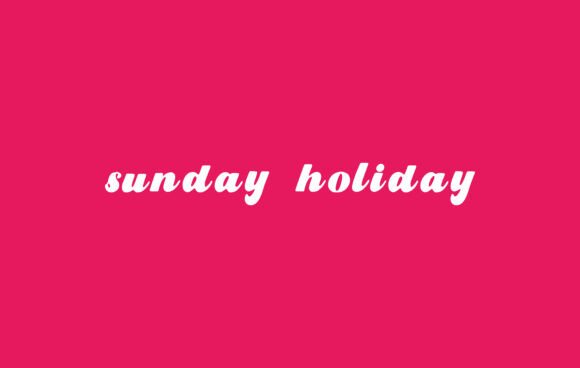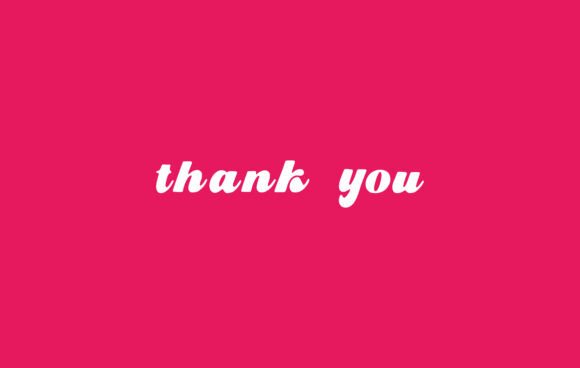
Babaco Font: Elevate Your Designs with a Romantic Handwritten Touch
In the world of typography, a well-crafted font can make all the difference in bringing your creative ideas to life. For designers and crafters looking for a unique and authentic handwritten font with a romantic touch, Babaco Font is an excellent choice. This beautifully designed font is not only legible but also versatile, making it perfect for a wide range of design projects.
What Makes Babaco Font Special?
Babaco Font stands out from the crowd with its distinctive handwritten style that exudes a sense of romance and elegance. Expertly designed to capture the essence of traditional handwriting, this font is sure to become a true favorite among designers and crafters. Its authentic feel makes it an ideal choice for projects where a personal touch is desired.
Key Features of Babaco Font
- Authentic Handwritten Style: Babaco Font boasts a genuine handwritten look that adds a personal touch to any design.
- Romantic Touch: The font’s elegant and flowing lines give it a romantic feel, perfect for projects that require a touch of sophistication.
- Legibility: Despite its handwritten nature, Babaco Font is highly legible, making it suitable for both title and body text.
- Versatility: From magazine headlines and social media graphics to branding, wedding invitations, and cards, Babaco Font can be used in a multitude of design projects.
Uses of Babaco Font
The versatility of Babaco Font makes it a valuable asset for designers and crafters. Here are some of the many ways you can use this beautiful font:
- Magazine Headlines: Add a touch of elegance to your magazine or editorial designs with Babaco Font.
- Social Media Graphics: Stand out on social media platforms with eye-catching graphics featuring Babaco Font.
- Branding: Use Babaco Font to create a unique and memorable brand identity.
- Wedding Invitations: Add a romantic touch to wedding invitations and save-the-date cards.
- Cards and Stationery: Create beautiful and personalized cards and stationery with Babaco Font.
Tips for Using Babaco Font Effectively
To get the most out of Babaco Font, consider the following tips:
- Mix and Match: Experiment with different font sizes, colors, and styles to create visual interest.
- Pair with Other Fonts: Combine Babaco Font with other fonts to create a unique and harmonious design.
- Play with Colors: Take advantage of Babaco Font’s versatility by using it with a variety of colors and textures.
Babaco Font is a beautiful and versatile handwritten font that can elevate your designs to new heights. With its authentic and romantic style, legibility, and wide range of uses, it’s an excellent addition to any designer’s or crafter’s toolkit. Whether you’re working on a magazine headline, social media graphic, or wedding invitation, Babaco Font is sure to bring a touch of elegance and sophistication to your project.